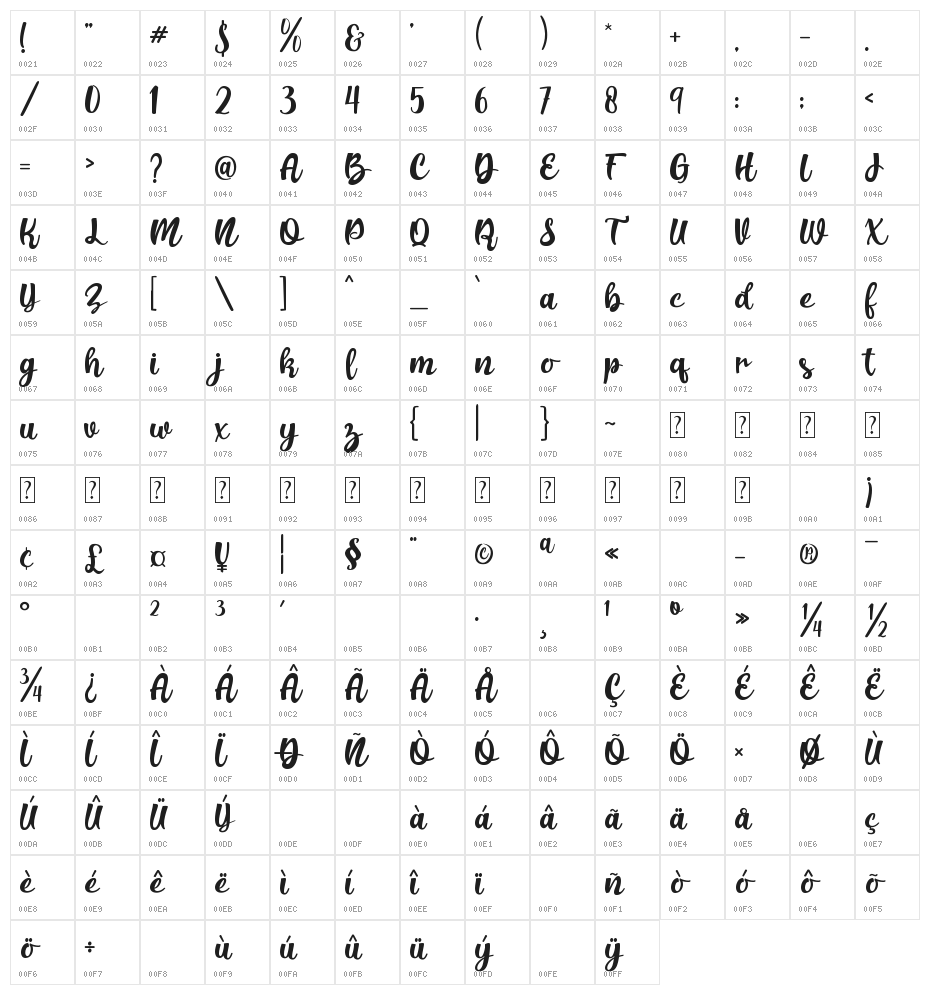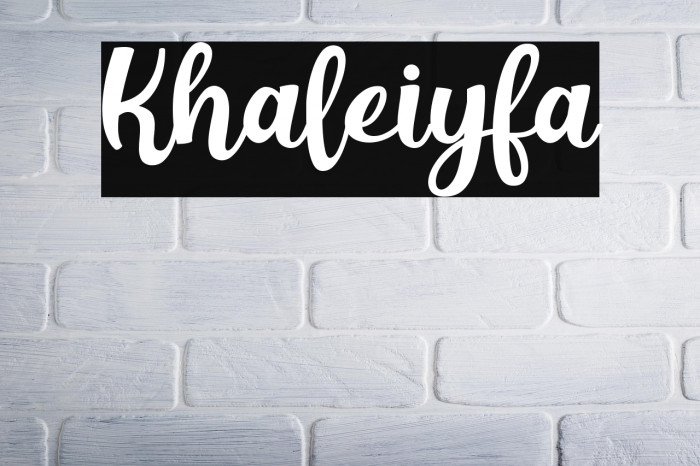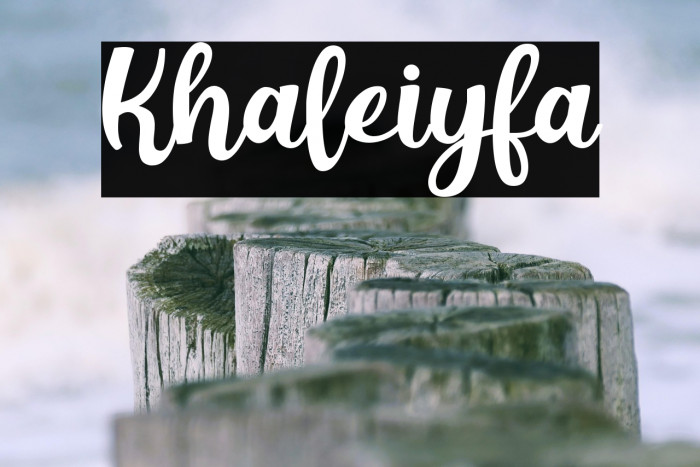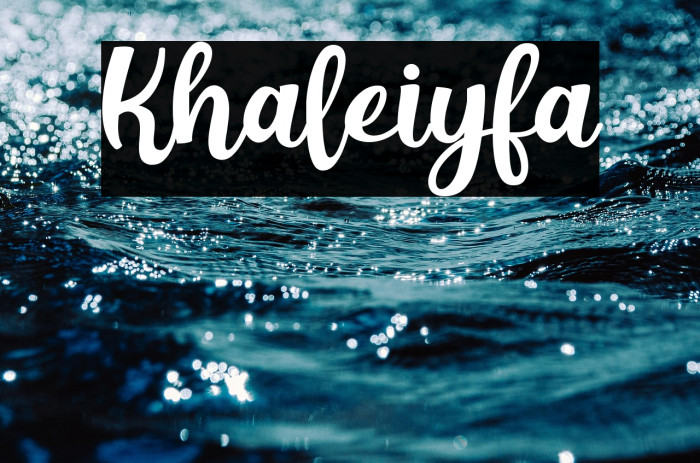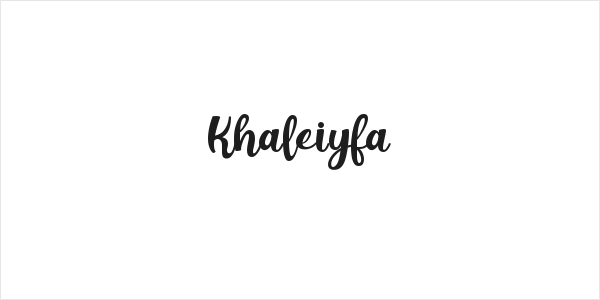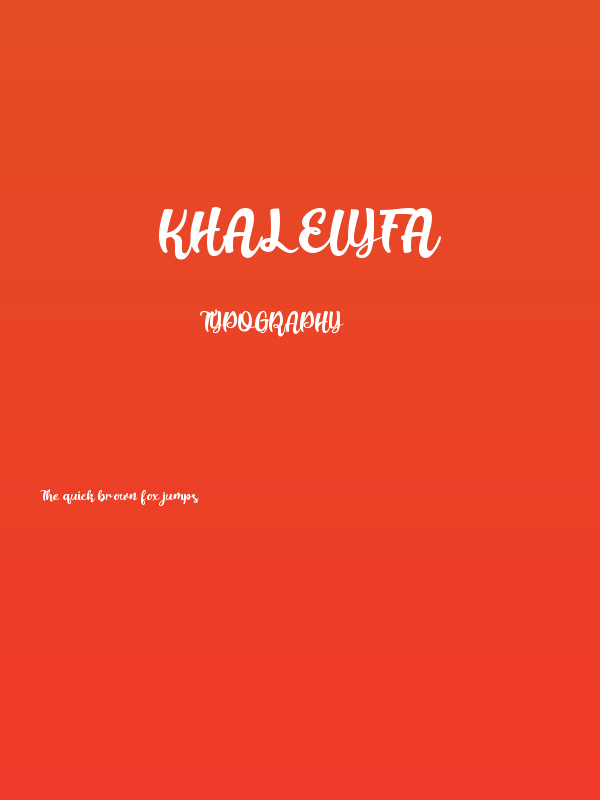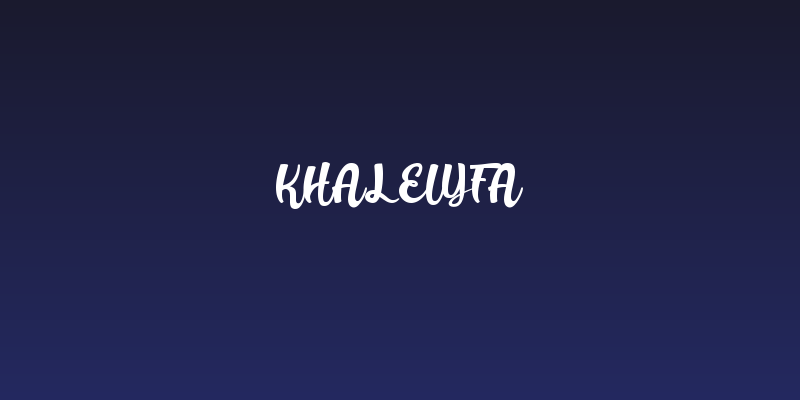
Khaleiyfa Font
Khaleiyfa Description
This font features a bold and flowing script style, characterized by its smooth, cursive strokes and elegant curves. The uppercase letters are prominently designed with a sense of movement, while the lowercase letters maintain a consistent flow, enhancing readability. The numerals and special characters are crafted to match the overall aesthetic, providing a cohesive look. This font exudes a sense of modern elegance and sophistication, making it suitable for a variety of creative applications. Its design is both playful and refined, offering versatility for different design needs.
| Proposed Projects | Ideal for wedding invitations, branding projects, social media graphics, and elegant packaging designs. |